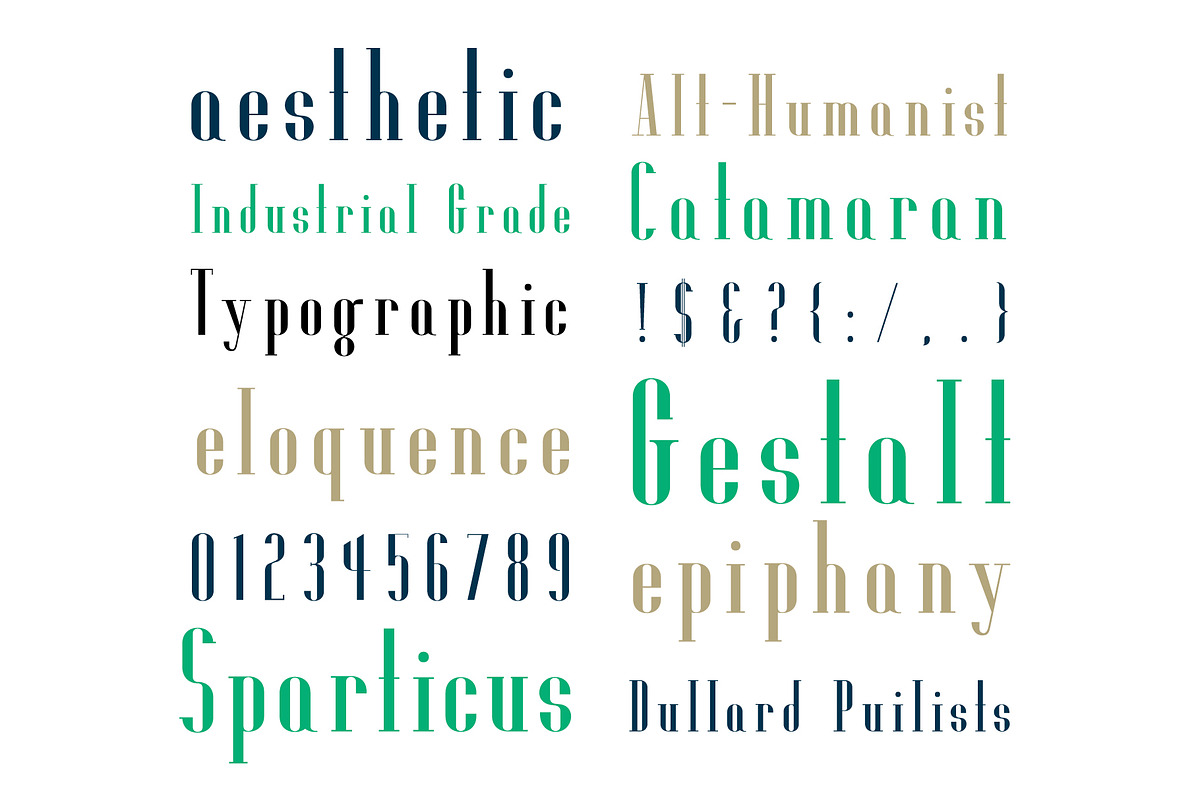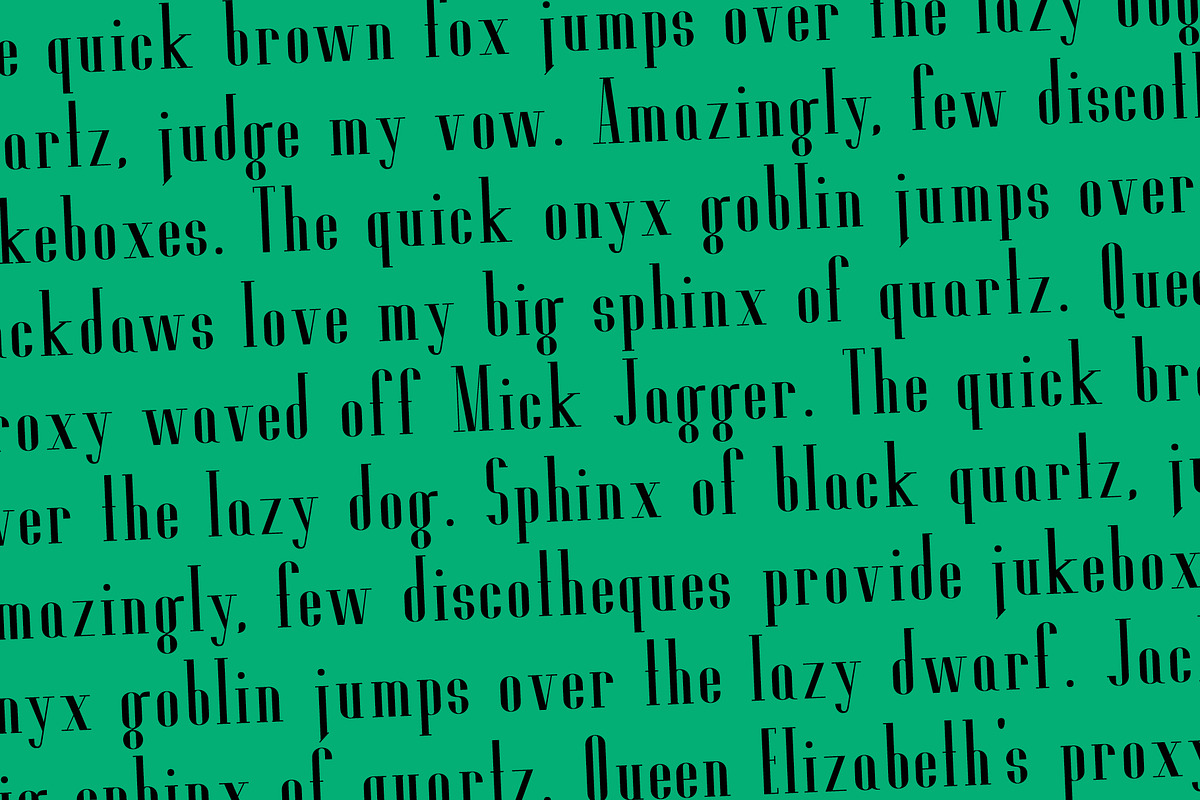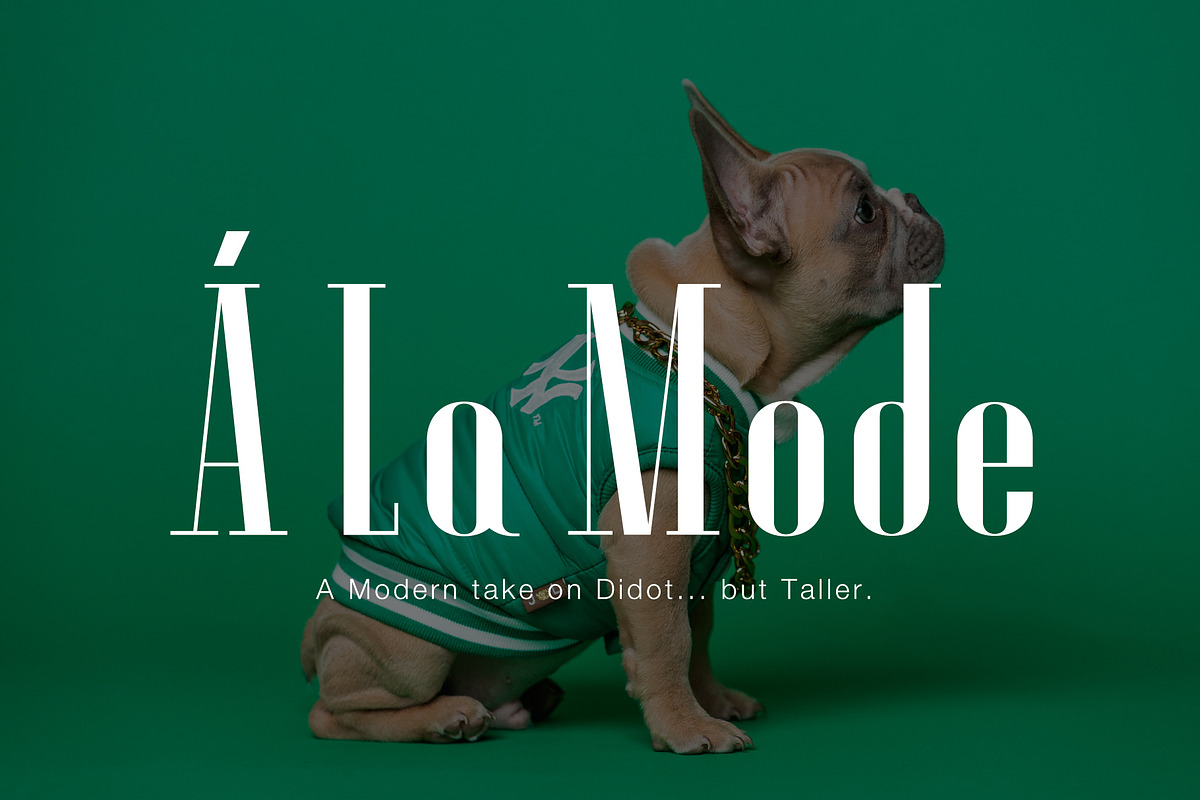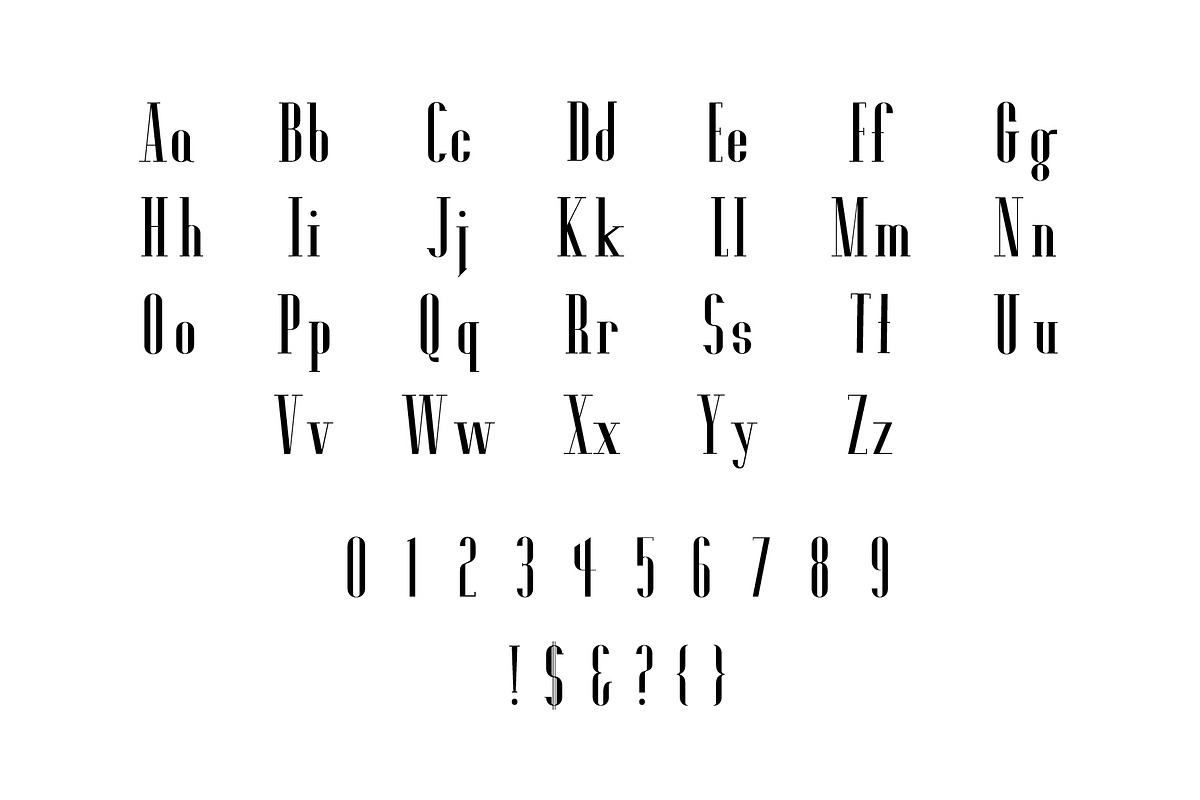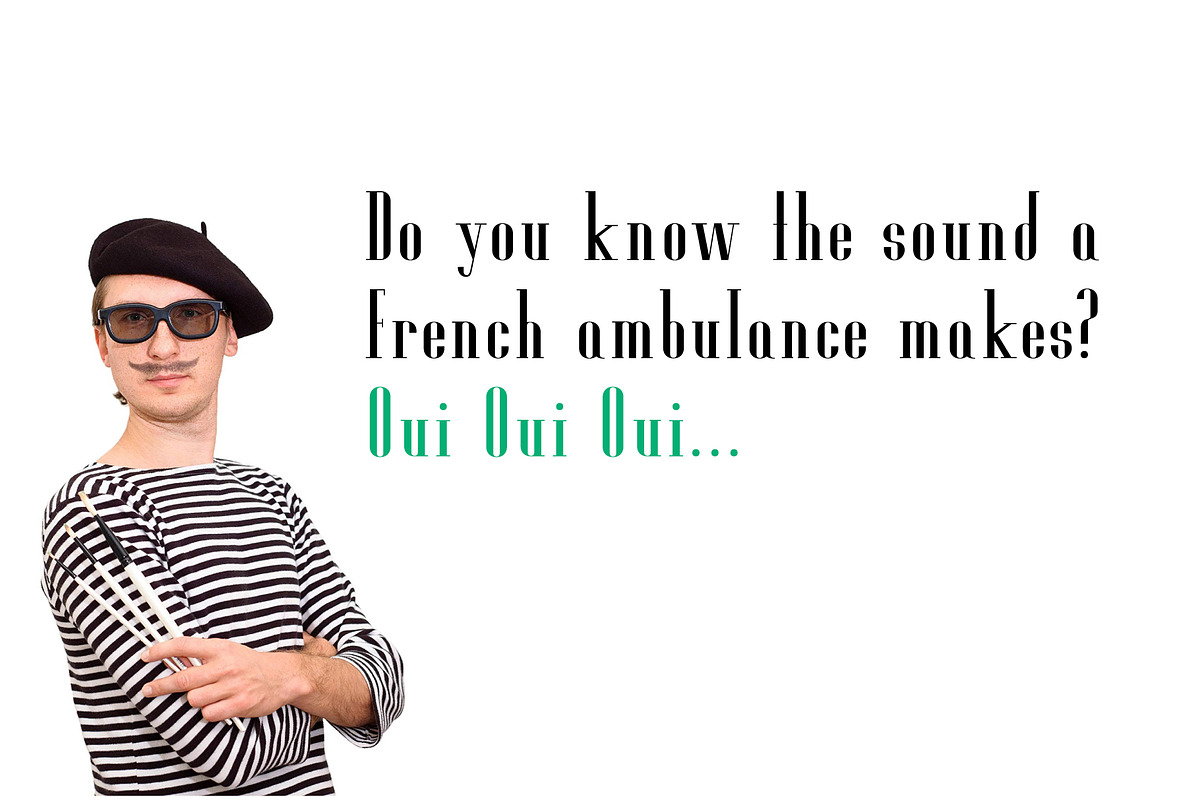
A La Mode
A La Mode is a modern pass on a classic, Didot, made by the legendary French 19th-century type designer Firmin Didot.
Made to be taller and a little curvier. It's Didot meets the Marlboro man with some rounding. Great for any display project where you need some height (poster, mastheads, covers, etc.